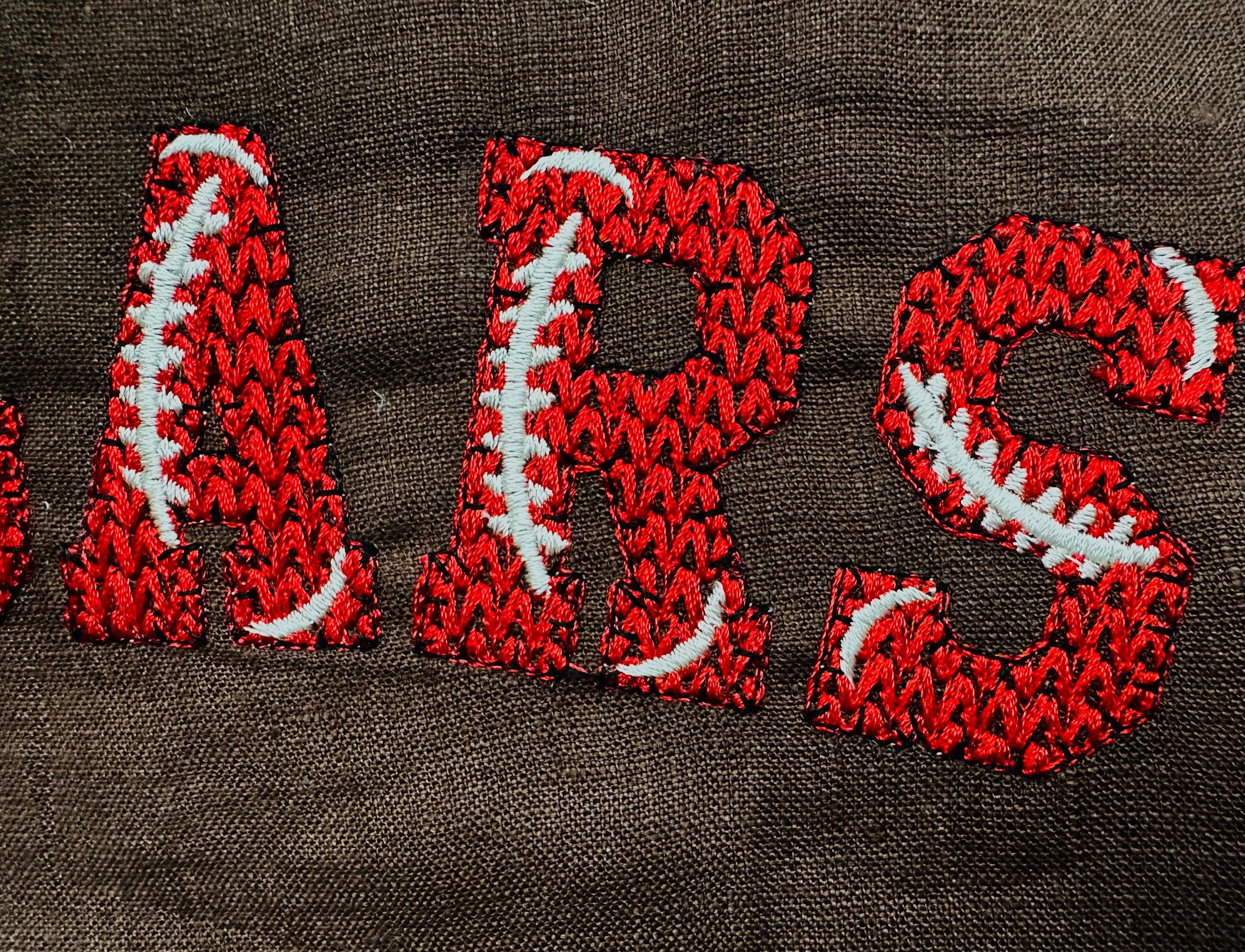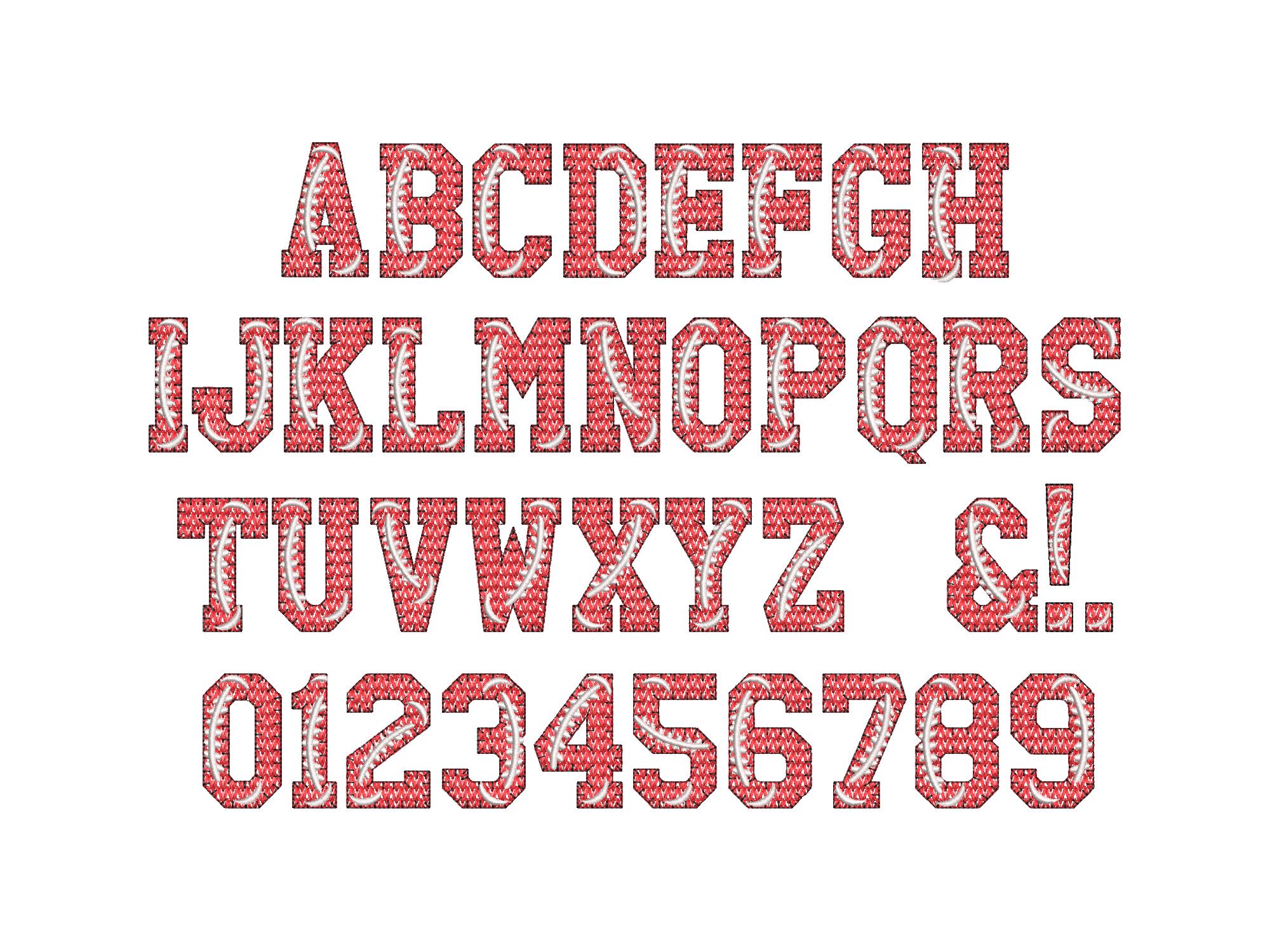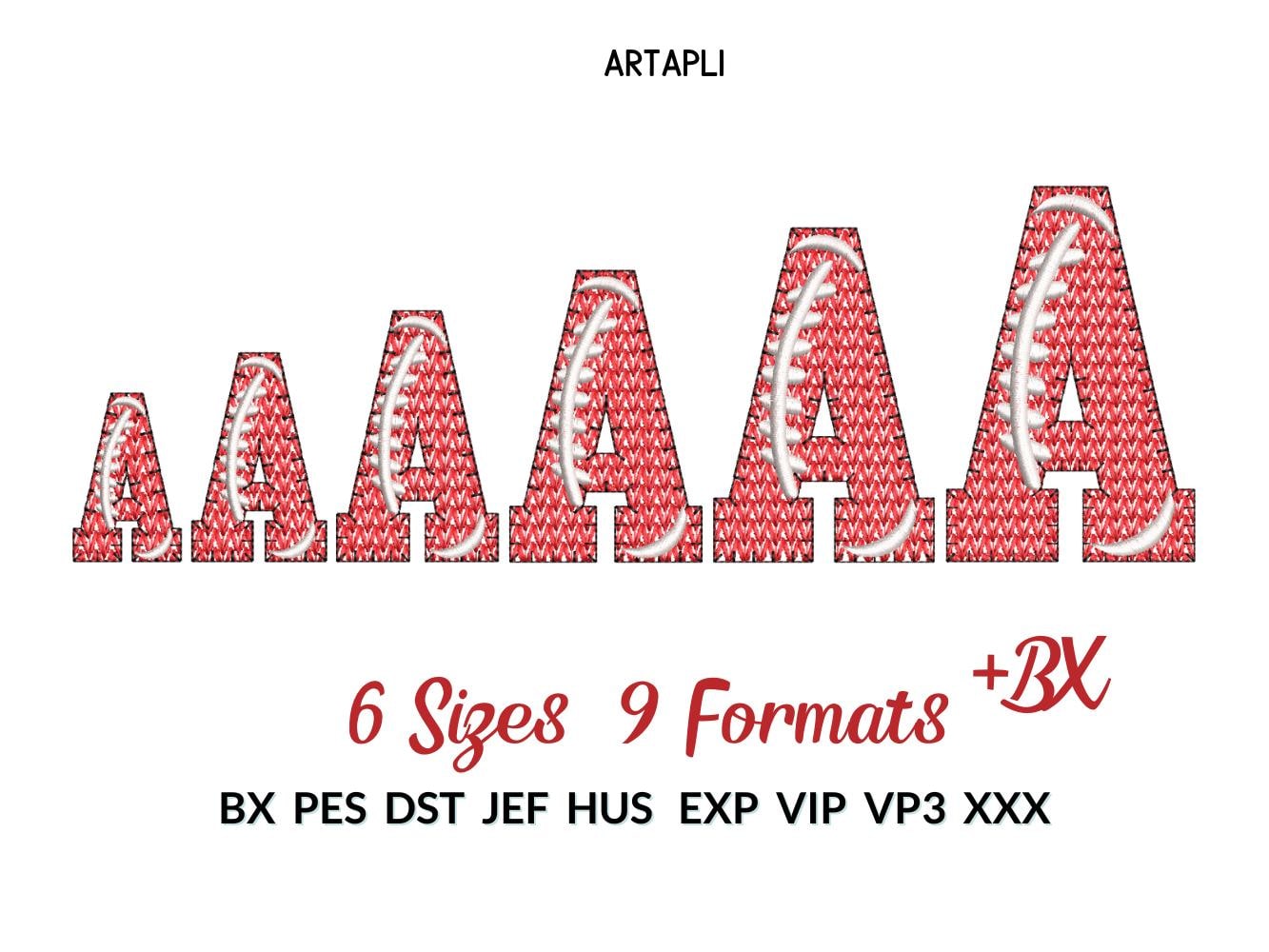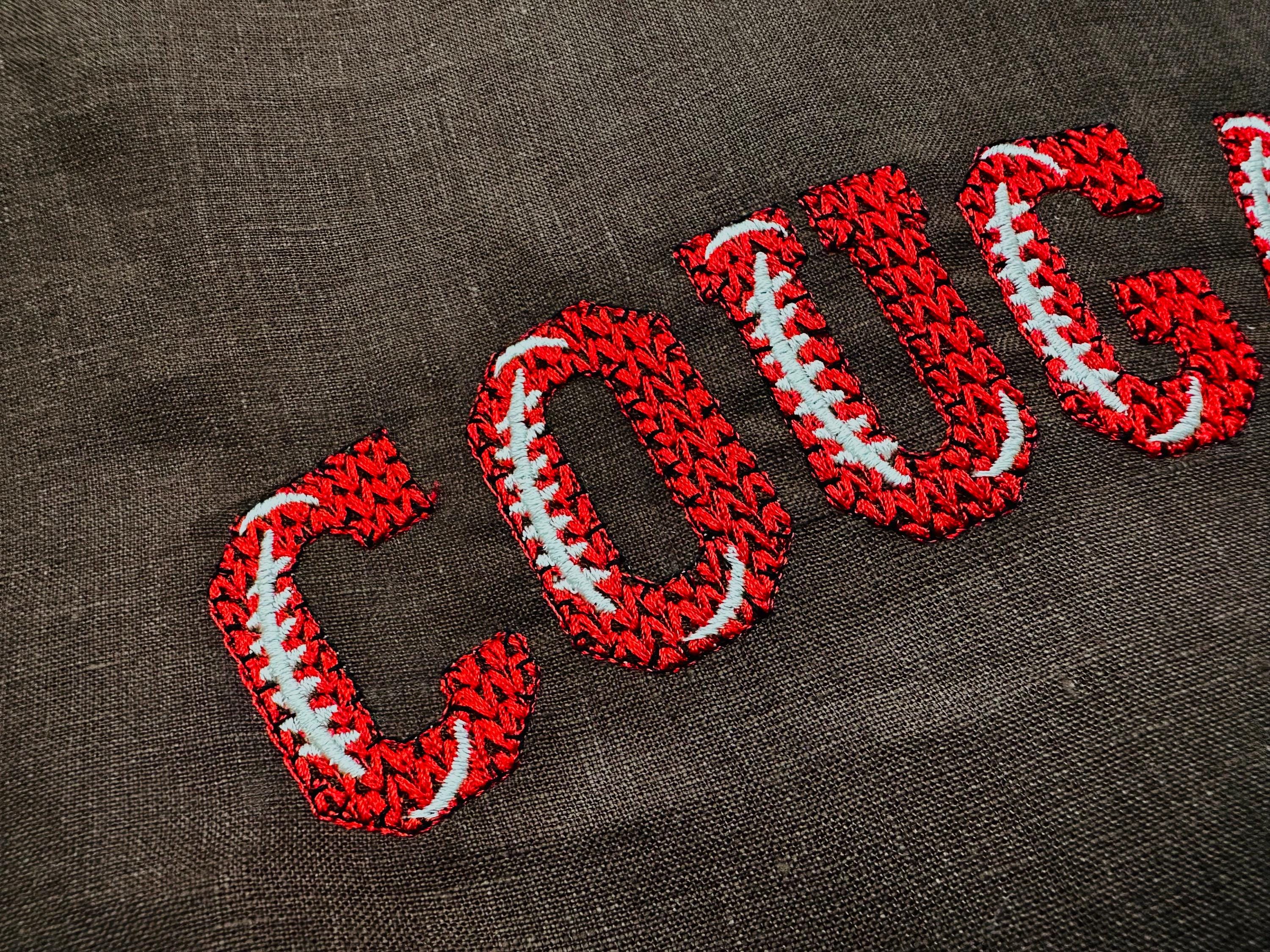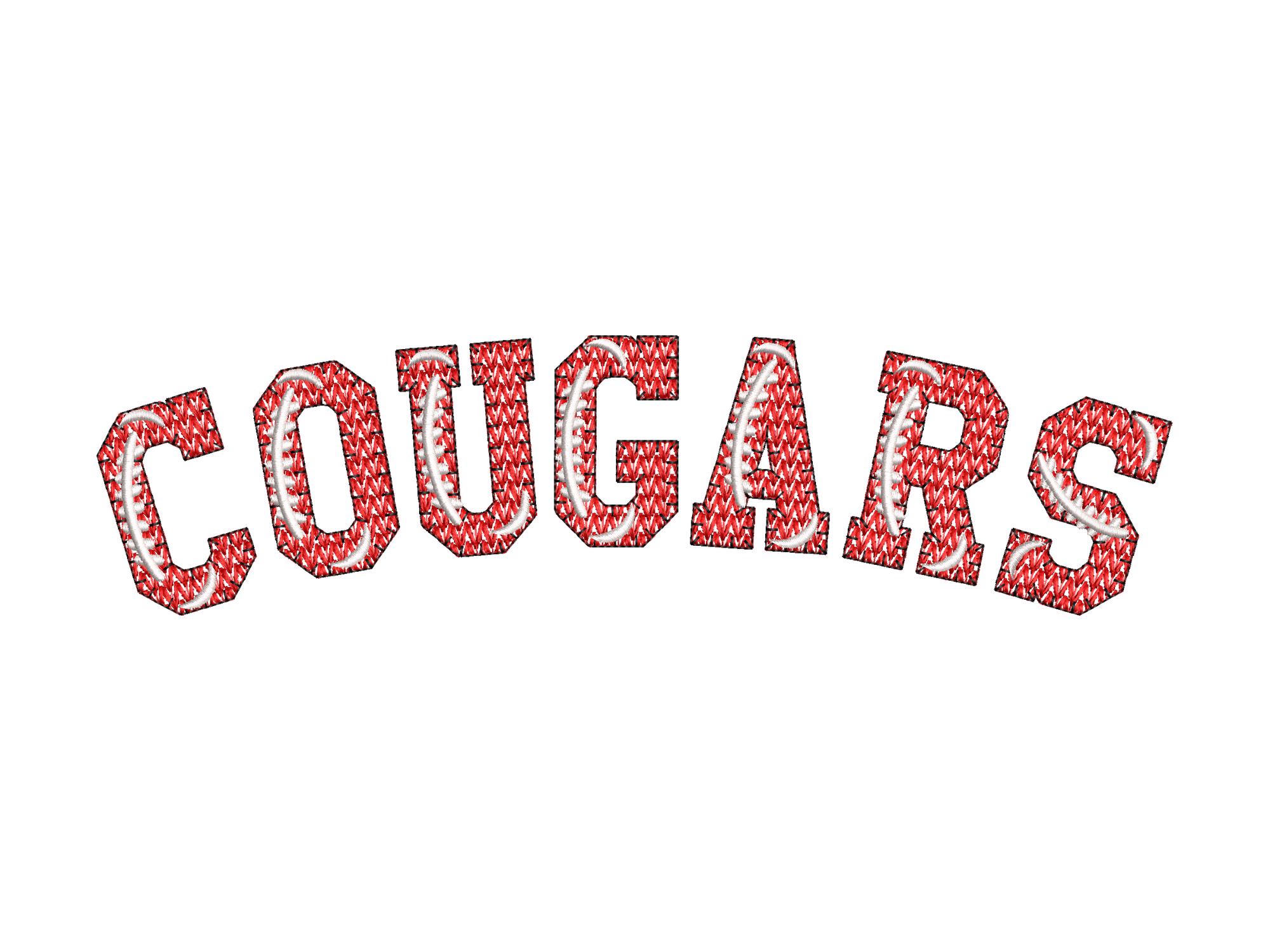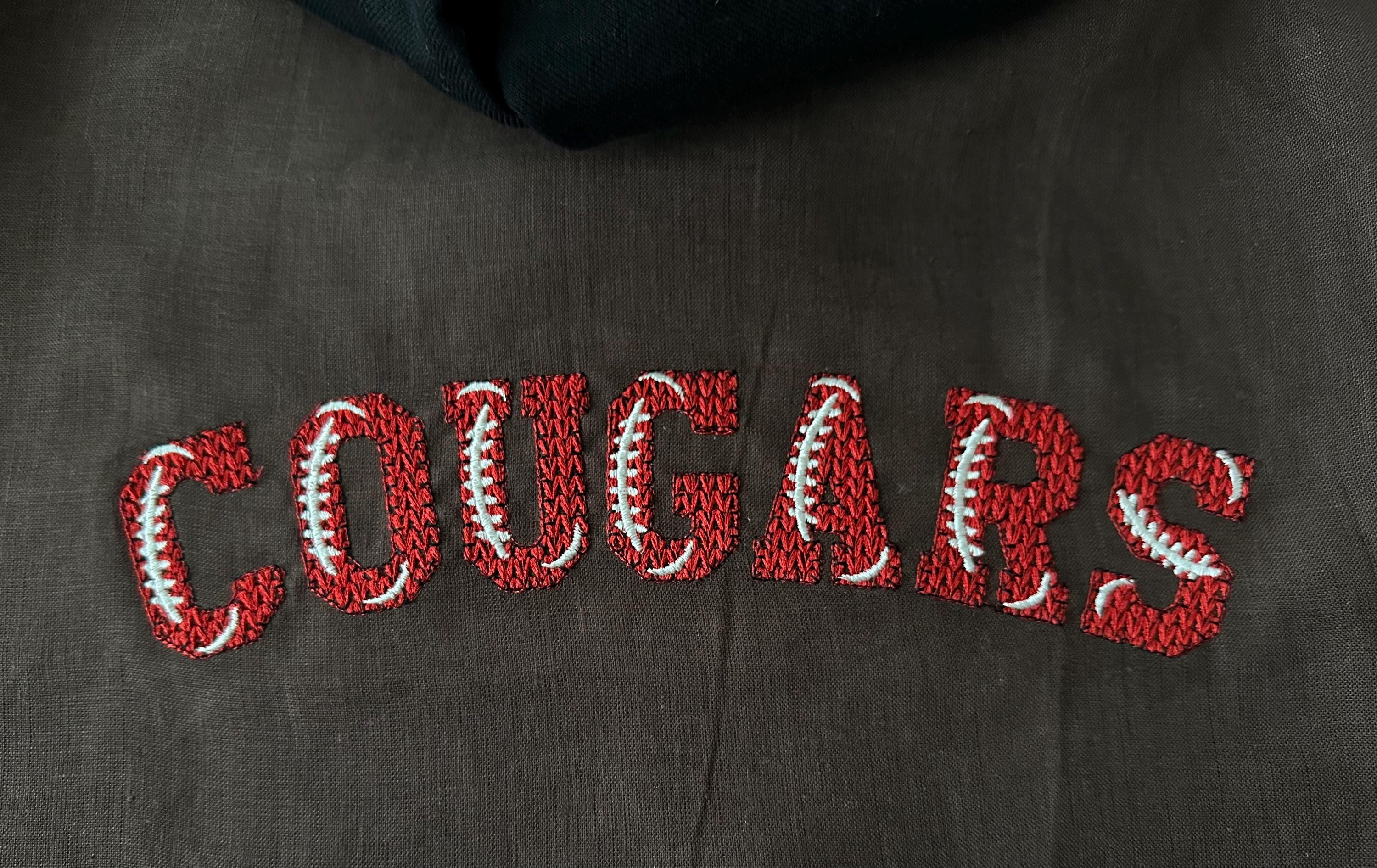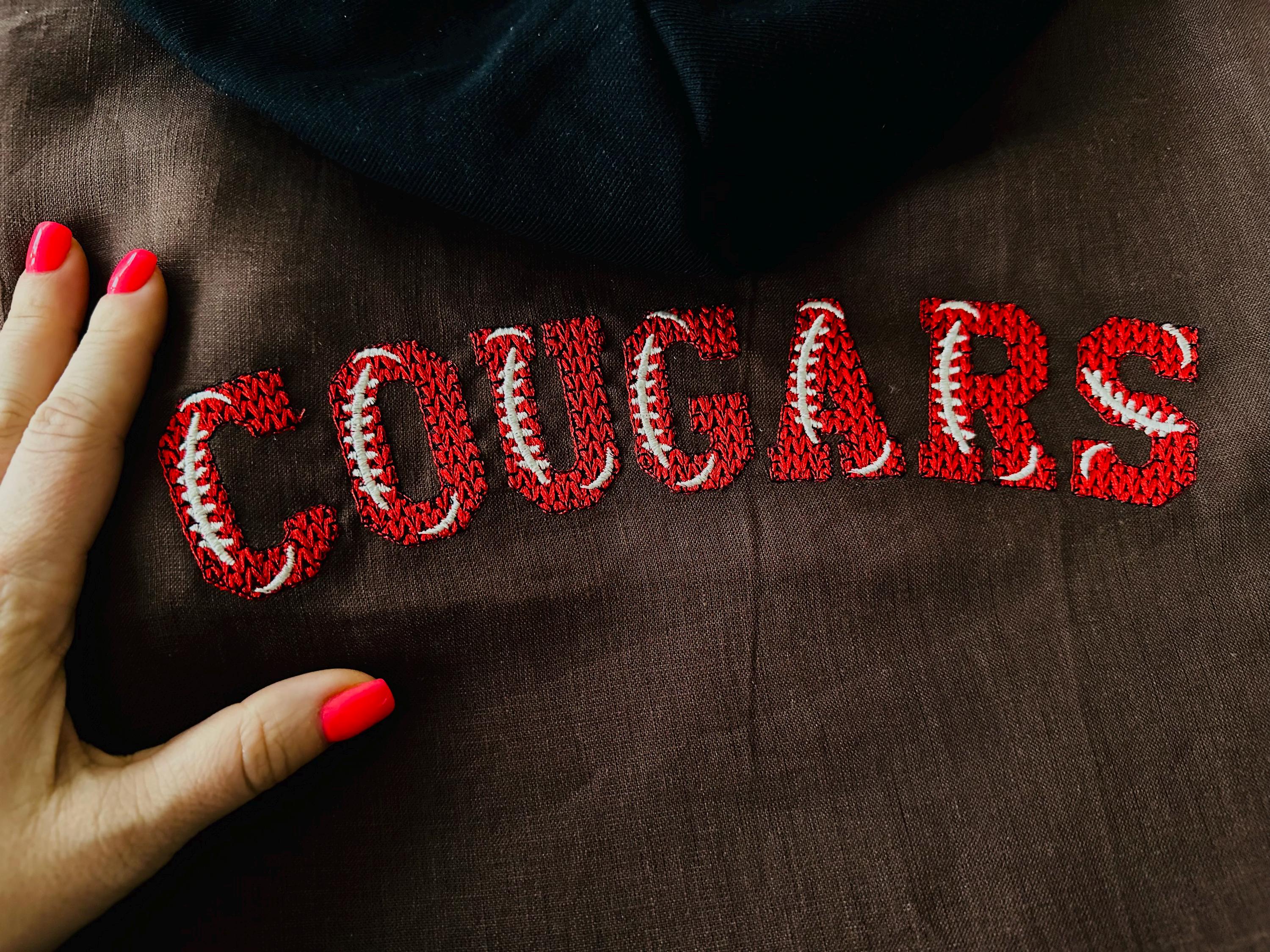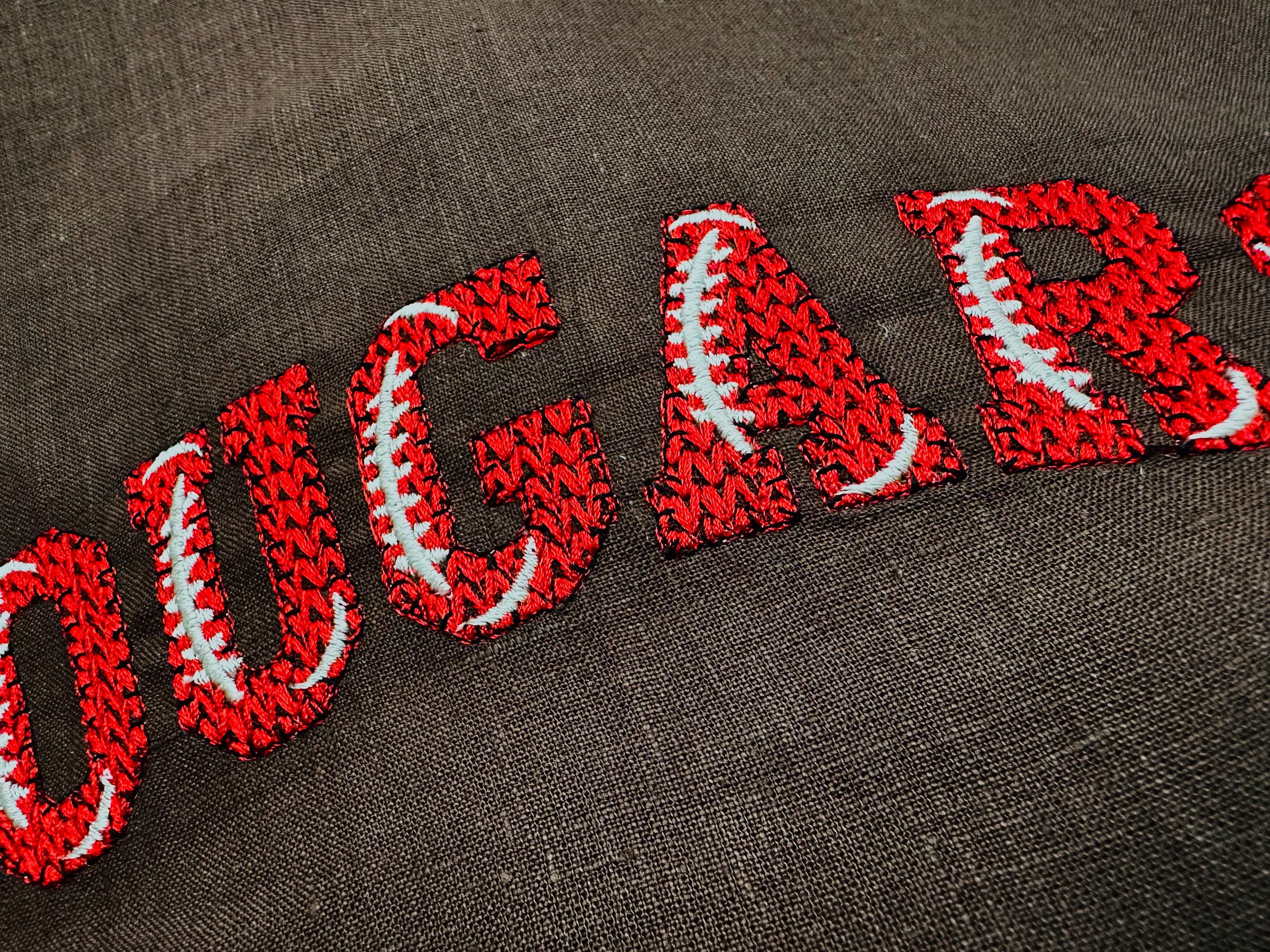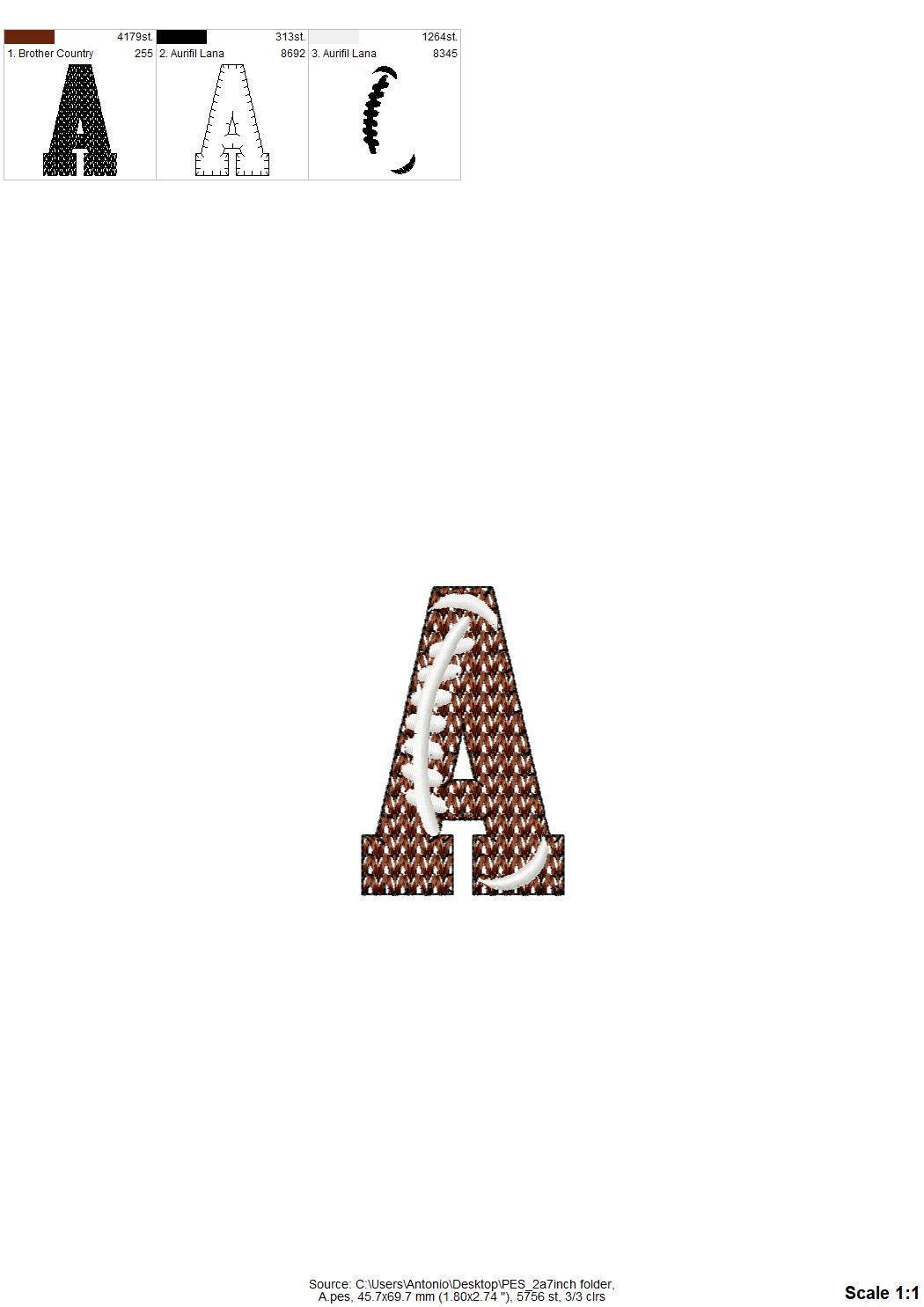
Knit stitch Football FONT hand stitch effect knitted Block Font Varsity Athletic Sport alphabet monogram machine embroidery designs and BX included
Whole alphabet uppercase A-Z, numbers 0-9, and punctuation.
The font is transparent, it has a knit stitch fill, a nice simple hand stitch effect outline, and football seam decoration.